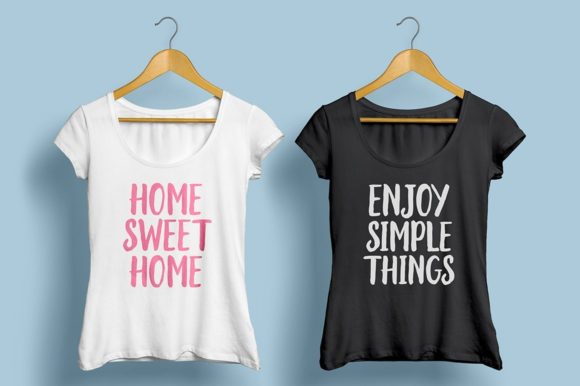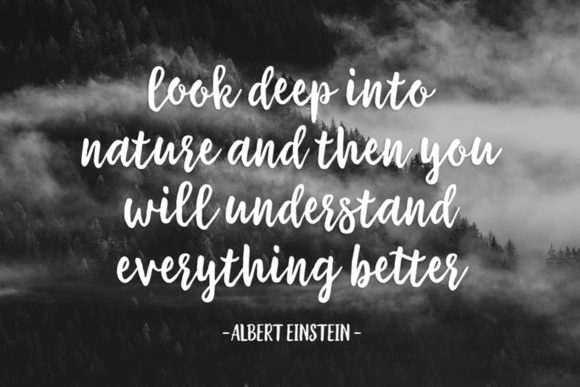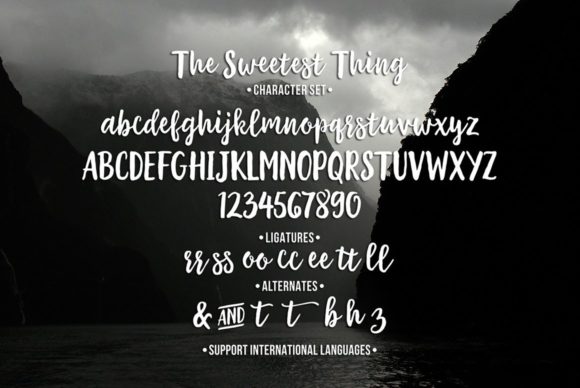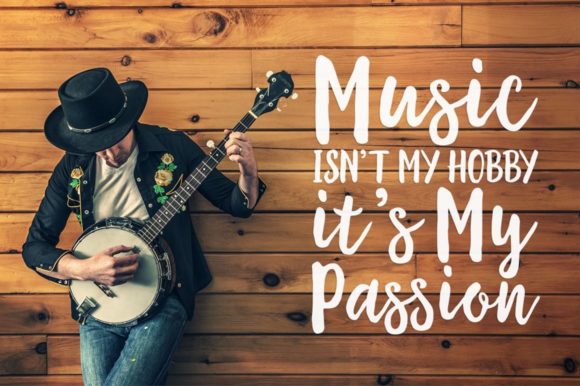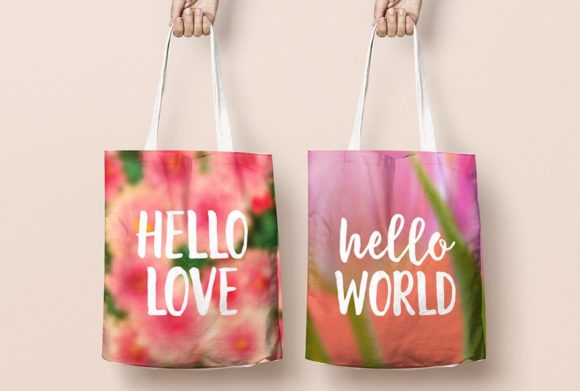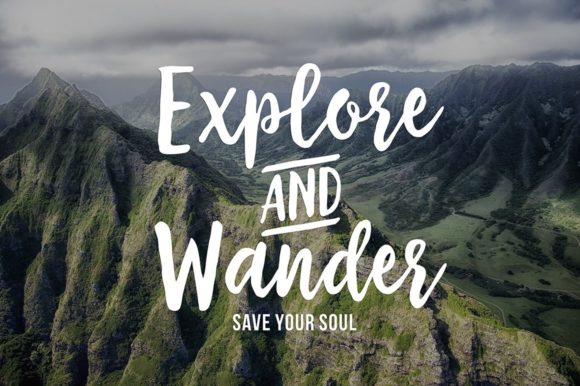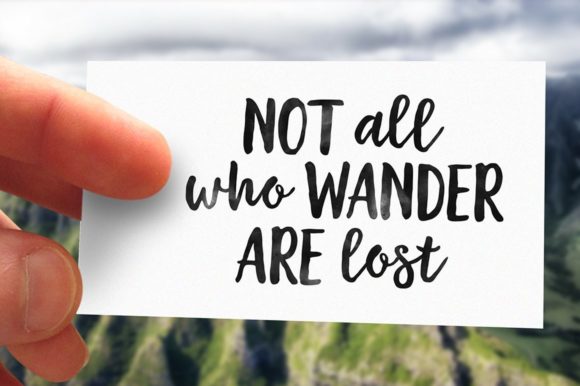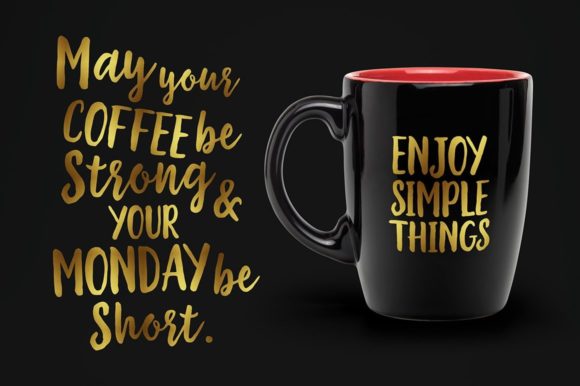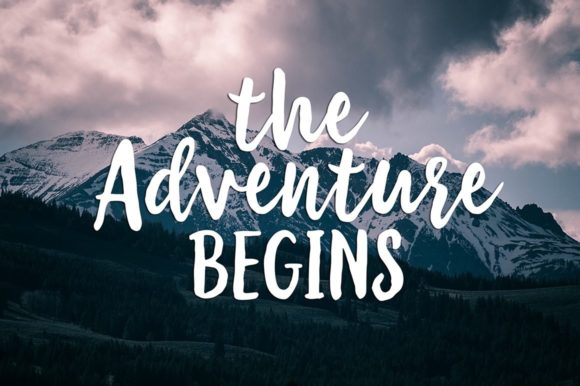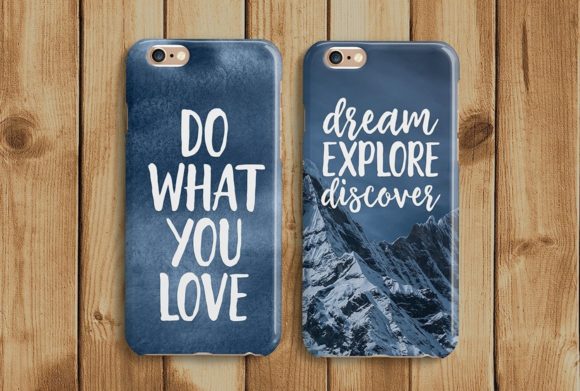
The Sweetest Thing Font
About The Sweetest Thing Font
“The Sweetest Thing” is a delightful handmade typeface, crafted with a brush and ink, embodying a contemporary approach to natural hand-painting. This font is a harmonious combination of delicate script and an irregular baseline, offering a fresh and vibrant style. Its versatility makes it suitable for a wide range of creative applications, such as watercolor designs, hand-brushed bold letters, novel titles, apparel, invitations, quotes, books titles, stationery designs, branding, logos, greeting cards, T-shirts, packaging designs, posters, and more.
The charm of “The Sweetest Thing” lies in its handmade aesthetic, creating an authentic and organic feel reminiscent of brush and ink work. The irregular baseline adds a touch of uniqueness, making it well-suited for projects that demand a lively and creative flair.
The font’s PUA encoding enhances its accessibility, allowing users to easily access all glyphs and swashes. This feature provides creative freedom, enabling customization and personalization to suit the specific needs of your design projects.
In essence, “The Sweetest Thing” is more than just a font; it’s a handcrafted typeface that brings a fresh and lively vibe to your designs. Whether applied to watercolor projects, bold lettering, or a variety of design applications, its handmade charm and irregular baseline make it a charming choice. With PUA encoding, “The Sweetest Thing” offers both authenticity and ease of use, making it a valuable asset for designers seeking a font that adds a touch of handmade warmth to their creative work.